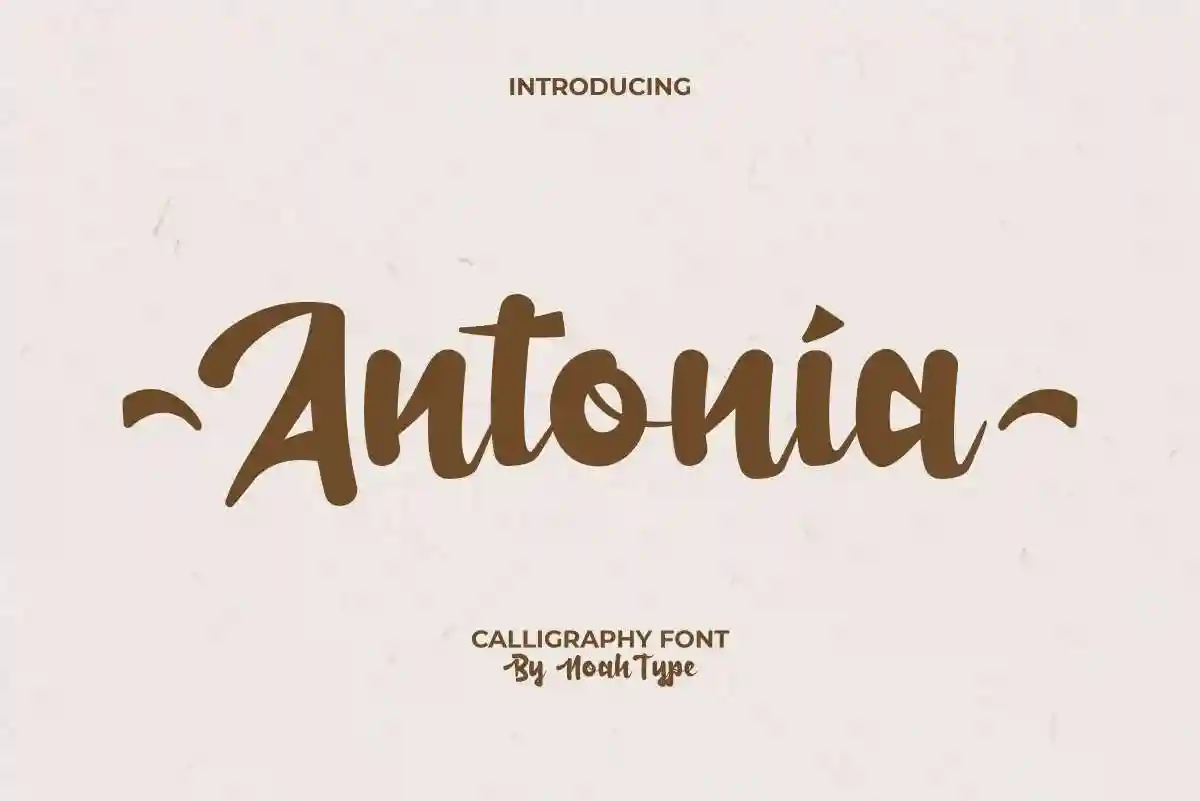
Antonia Font is thick and beautiful handwriting with calligraphy style. This cursive is inspired by the handwritten style of the royal era which is easy to read and ensures it looks good. It will be amazing for any project: blog headers, custom tote bag, headline, label, magazine design, menu flyer, print design on clothes, and more.
Antonia Font includes full set of Uppercase and Lowercase Basic Characters, Numerals and Punctuation. Also contains a swoosh to create an elegant and stylish look. It will be perfect for any industries such as, architect, boutique, fashion, florist, furniture, restaurant, writer, and anything to perfect your extraordinary project.
Are you searching for the perfect calligraphy font to elevate your design projects? Antonia Calligraphy Font is the ultimate choice for those who value sophistication, beauty, and timeless elegance. Designed with smooth curves, flowing strokes, and romantic flair, this font brings a luxurious handwritten touch to any creation.
Antonia Calligraphy is a modern script font that blends classic charm with contemporary style. Whether you’re designing wedding invitations, logos, branding materials, social media graphics, or elegant product packaging, this font delivers an artistic and professional finish. Its fluid lines and graceful loops make every word look like a masterpiece.